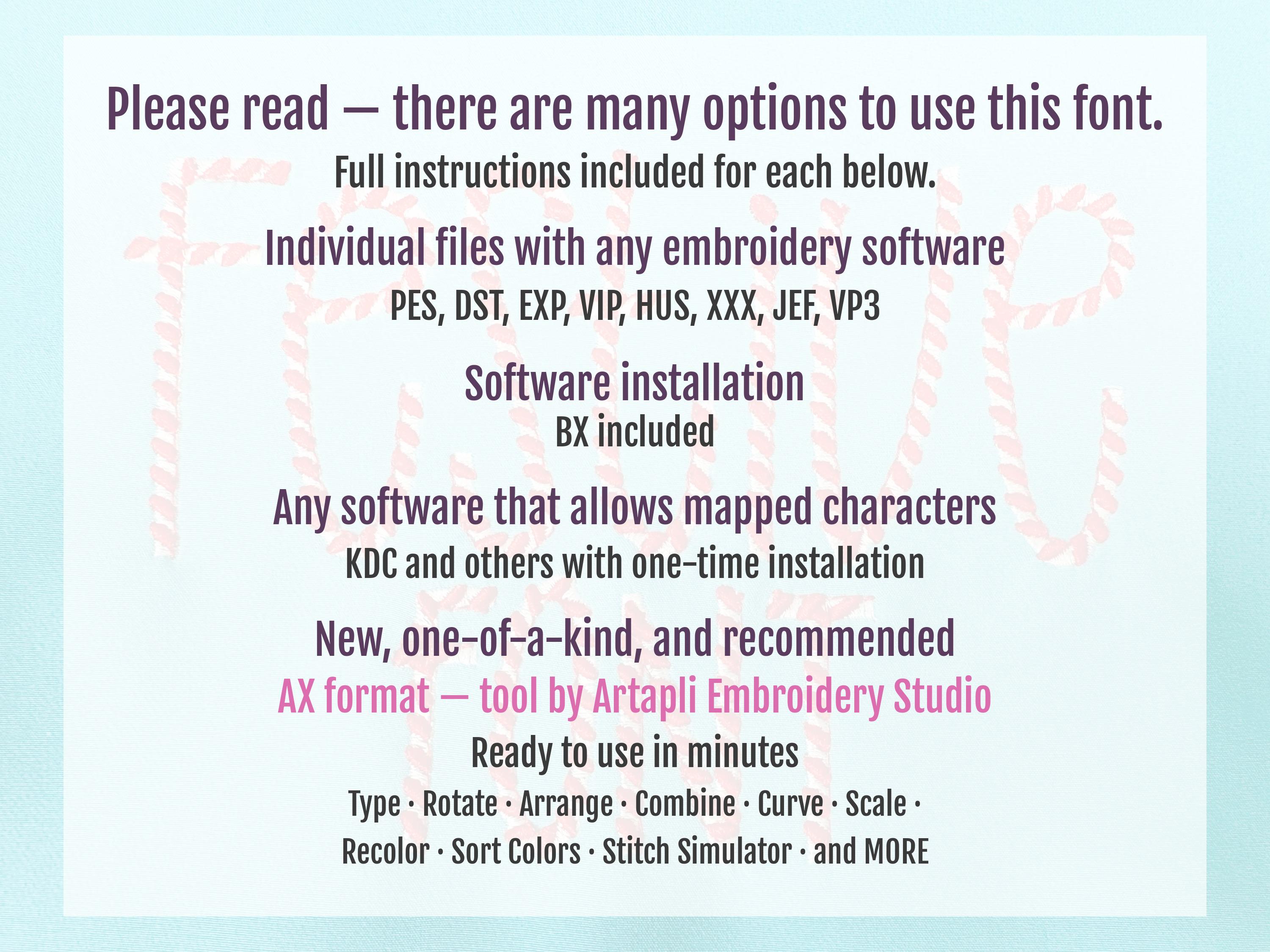
Christmas Santa Candy Cane FONT alphabet letters numbers 2 colors Stocking monogram machine embroidery designs sizes from 1.4 to 3.4 in, BX
The entire alphabet consists of uppercase and lowercase letters Aa-Zz same height, and numbers 0-9.